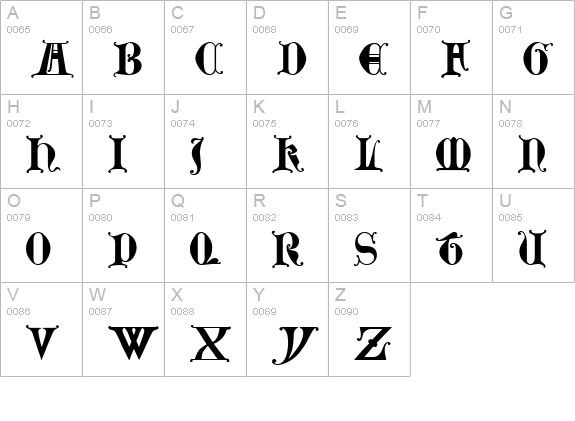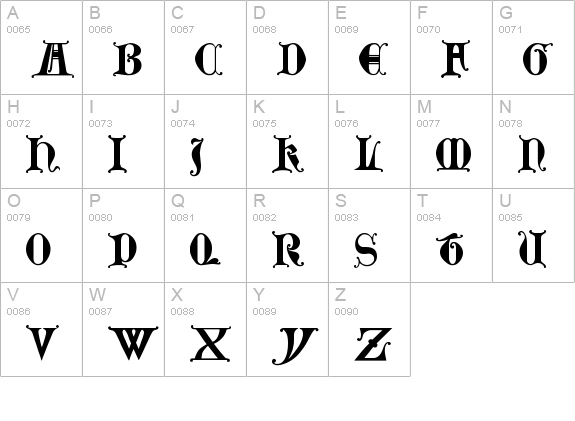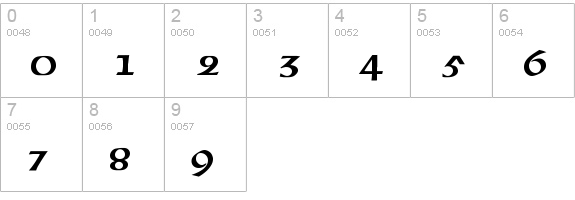
Lubeck Font Details
Lubeck font is a modern and elegant typeface that exudes sophistication and style. Its clean lines and smooth curves make it perfect for a wide range of design projects, from branding to editorial design. The versatility of Lubeck font allows it to be used in both digital and print mediums, making it a valuable addition to any designer's toolkit. What sets Lubeck font apart is not only its aesthetic appeal but also the fact that it is completely free to download. You can access this stunning font at FontsMarket.com, where you can easily incorporate it into your creative projects without any cost. Whether you're working on a website, a poster, or a logo, Lubeck font will elevate your design and give it a touch of sophistication that sets it apart from the rest. Download Lubeck font today and see the difference it can make in your design work.